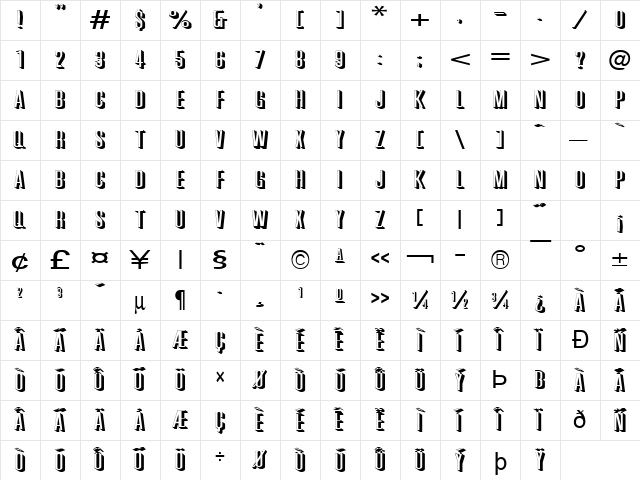
Phoenix-Extended Normal Free Font
Phoenix-Extended Normal
Phoenix-Extended Family
Complete Phoenix-Extended Normal glyph index. Displaying only characters natively supported by Phoenix-Extended Normal font.
Design Context for Phoenix-Extended
Phoenix-Extended is a composed and adaptable typeface that performs quietly and consistently across a wide range of design contexts.